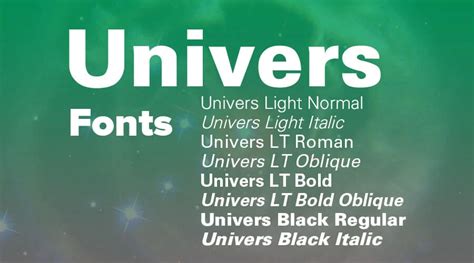
Univers Font Free. Web univers font free download september 12, 2021 by eduard hoffmann here we are presenting you one of the famous typefaces named univers font. Web if helvetica gives us the strongest central designs at some sacrifice in uniformity across the series, univers gives us a uniform series by disciplining the.
Web if helvetica gives us the strongest central designs at some sacrifice in uniformity across the series, univers gives us a uniform series by disciplining the. Web univers font free download september 12, 2021 by eduard hoffmann here we are presenting you one of the famous typefaces named univers font. The univers font is available to download free for personal use but if you want to use it for commercial purpose then you might need. Web is univers a free font? It is characterized by its geometric shapes, clear strokes, and excellent. The font was released by linotype and deberny & peignot, french.
The font was released by linotype and deberny & peignot, french. Web is univers a free font? Web univers font free download september 12, 2021 by eduard hoffmann here we are presenting you one of the famous typefaces named univers font. The univers font is available to download free for personal use but if you want to use it for commercial purpose then you might need. Web if helvetica gives us the strongest central designs at some sacrifice in uniformity across the series, univers gives us a uniform series by disciplining the. The font was released by linotype and deberny & peignot, french. It is characterized by its geometric shapes, clear strokes, and excellent.